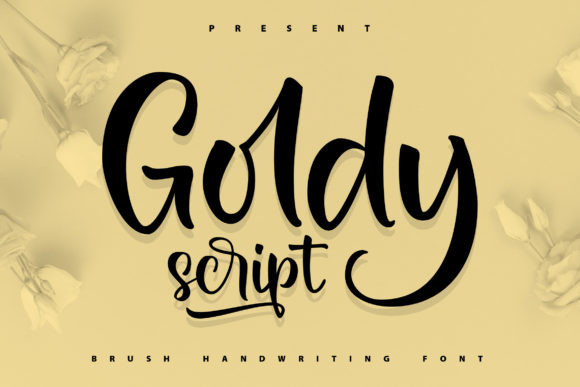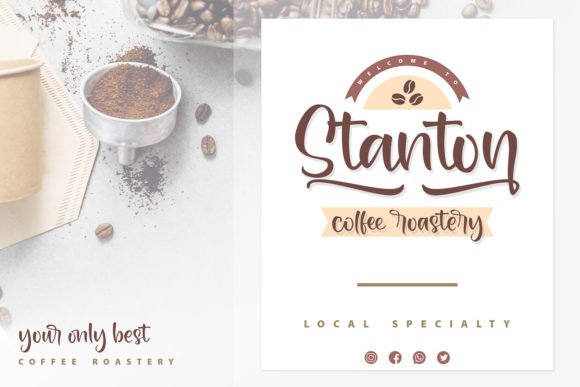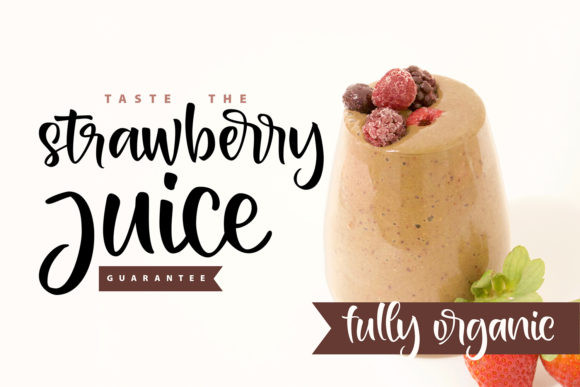
Goldy Font
Goldy is a lovely and flowing handwritten font. It is PUA encoded which means you can access all of the glyphs and swashes with ease! It maintains its classy calligraphic influences while feeling contemporary and fresh.